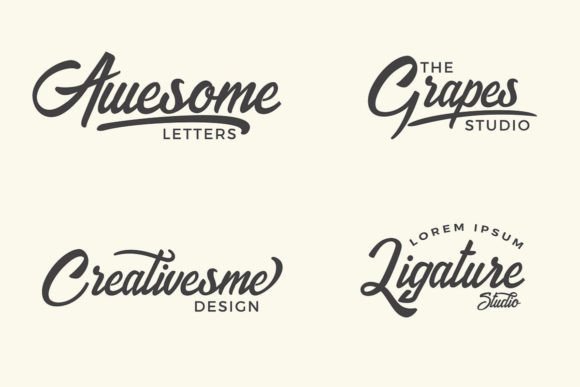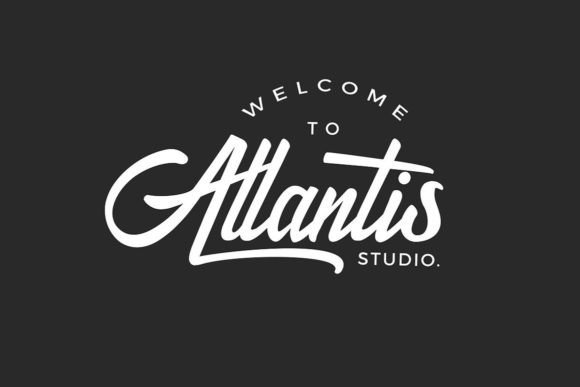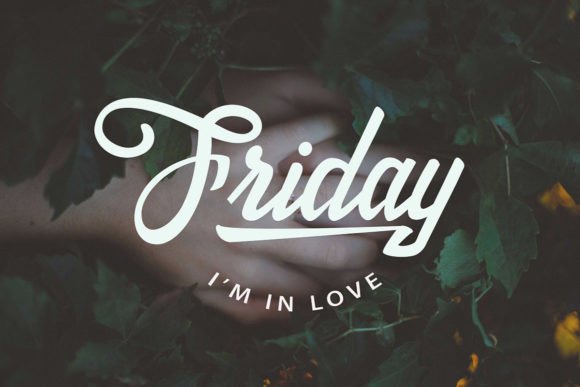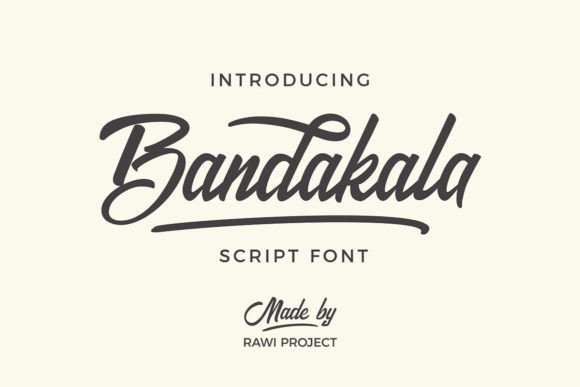
Introducing Bandakala Font: The Perfect Blend of Elegance and Urban Edge
In the world of typography, fonts play a crucial role in conveying the tone and personality of a brand. For designers and crafters, finding the right font can be a daunting task, especially when trying to balance elegance with an urban vibe. This is where Bandakala Font comes in – an exquisite and edgy urban script font that is taking the design world by storm.
The Unique Characteristics of Bandakala Font
Bandakala Font is a masterful blend of fluid, cursive strokes and modern, minimalist design. The letters are carefully crafted to create a sense of movement and fluidity, giving the font a dynamic and energetic feel. At the same time, the minimalist design ensures that the font remains clean and sophisticated, making it perfect for a wide range of design applications.
Perfect for Logos, Branding Materials, and Social Media Graphics
Whether you’re a designer looking to create a stunning logo or a crafter seeking to add a touch of elegance to your social media graphics, Bandakala Font is the perfect choice. The font’s versatility makes it suitable for a variety of design projects, from luxury brands to lifestyle blogs. With Bandakala Font, you can add a touch of sophistication to your designs and make them stand out from the crowd.
Key Features of Bandakala Font
- Urban Script Font: Bandakala Font is an urban script font that is both modern and elegant.
- Fluid Cursive Strokes: The font features fluid, cursive strokes that give it a dynamic and energetic feel.
- Modern Minimalist Design: The font’s minimalist design ensures that it remains clean and sophisticated.
- Versatile: Bandakala Font is perfect for a wide range of design applications, from logos to social media graphics.
Why Choose Bandakala Font?
- Elegant and Edgy: The font’s perfect blend of elegance and urban edge makes it suitable for a wide range of design projects.
Tips for Using Bandakala Font
- Pair it with a Bold Font: Pair Bandakala Font with a bold font to create a striking contrast.
- Use it for Headings: Use Bandakala Font for headings to add a touch of elegance to your designs.